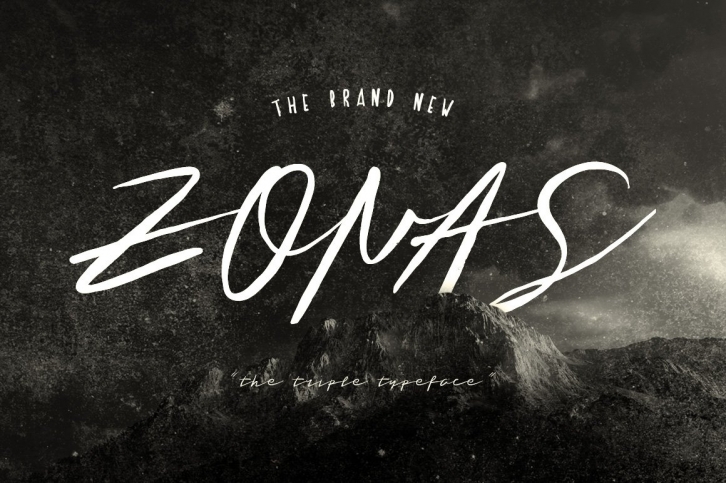
Introducing the new Zonas Triple Typeface. This font perfect for branding, signature, and more. It includes uppercase standard character, punctuation and multiple language support.